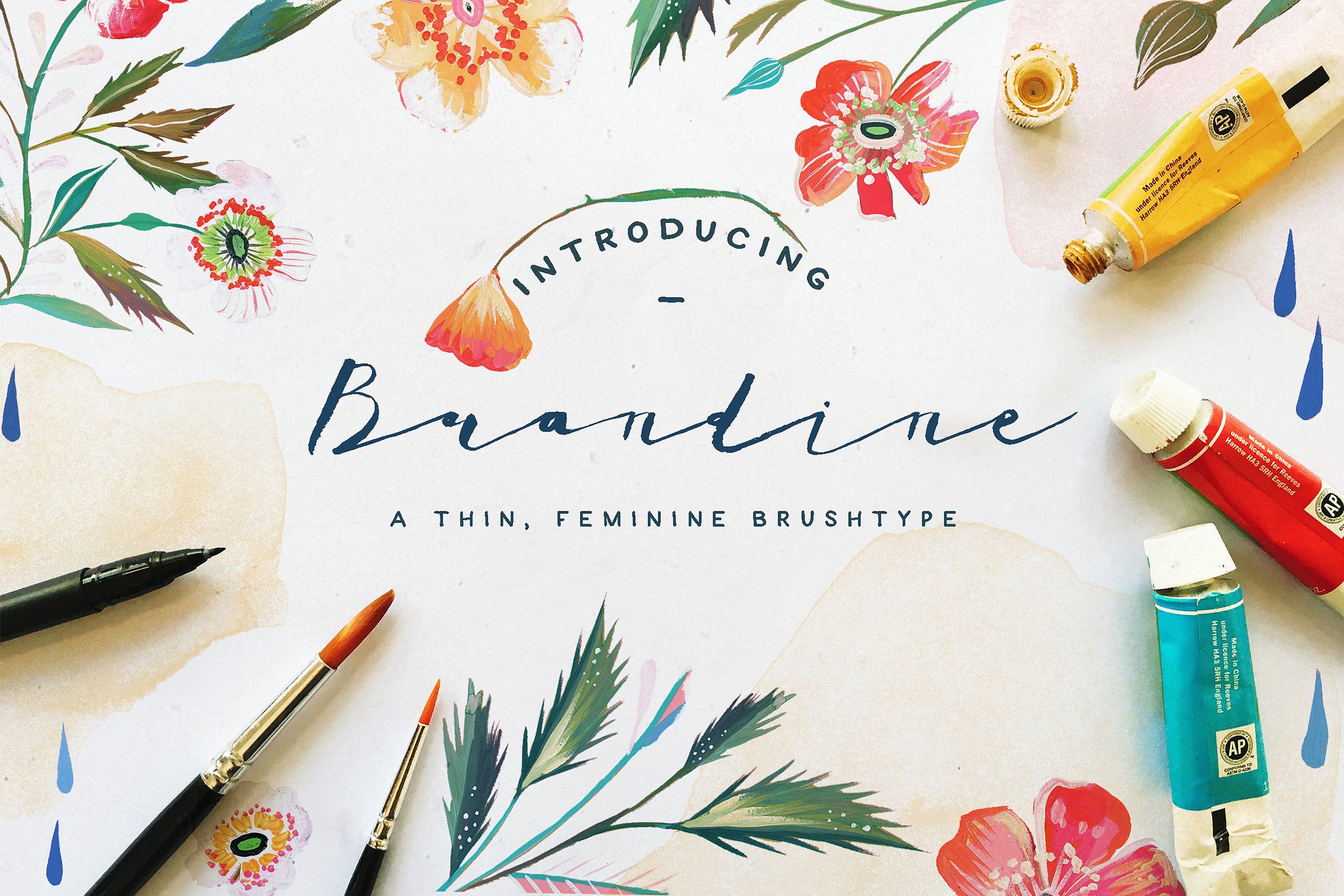
Brandine Script Font
Brandine is a feminine typeface, made of thin brush and watercolor. You can use Brandine best for your wedding cards and invites, greeting cards, title for your illustration, logo, return address, and other types of branding work.